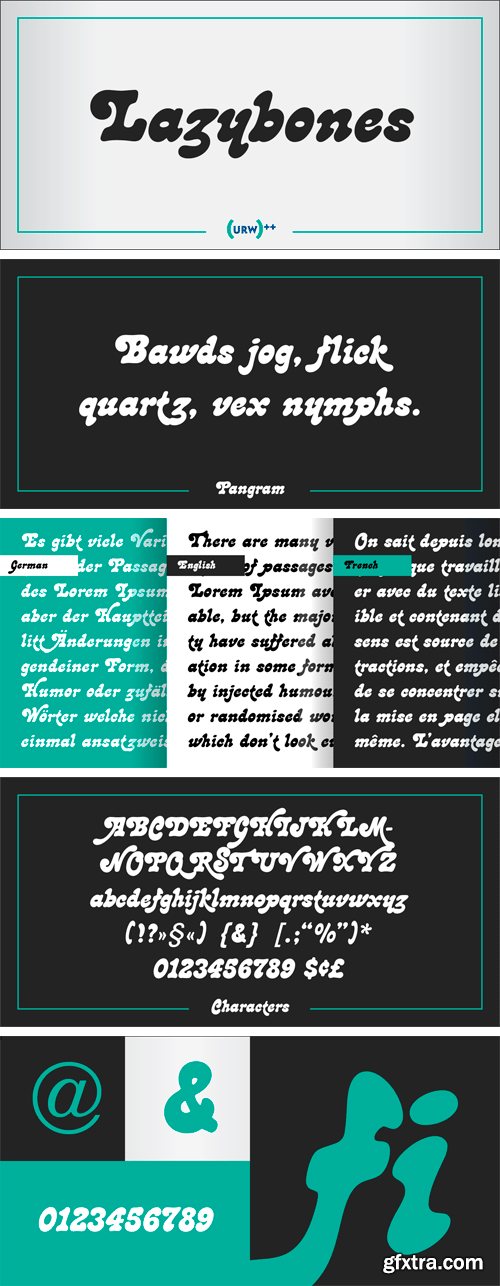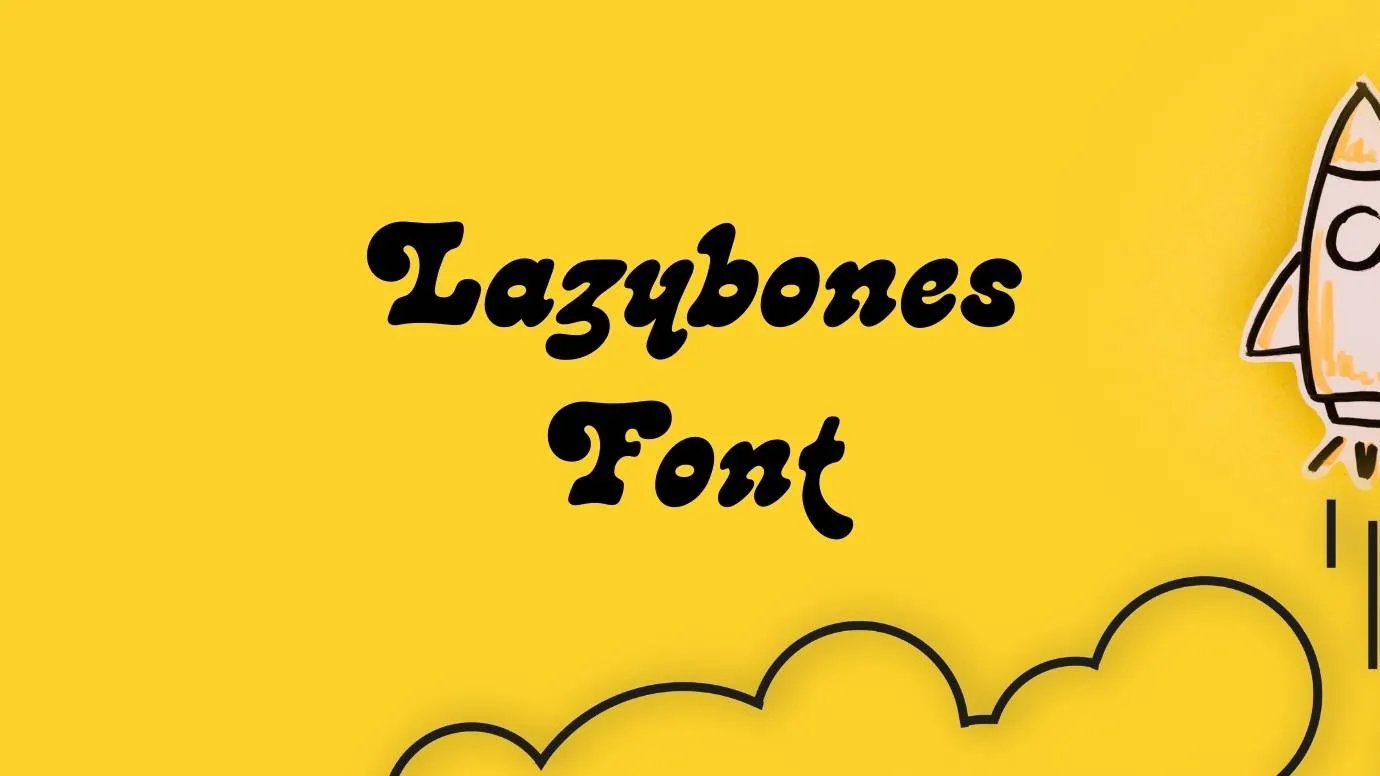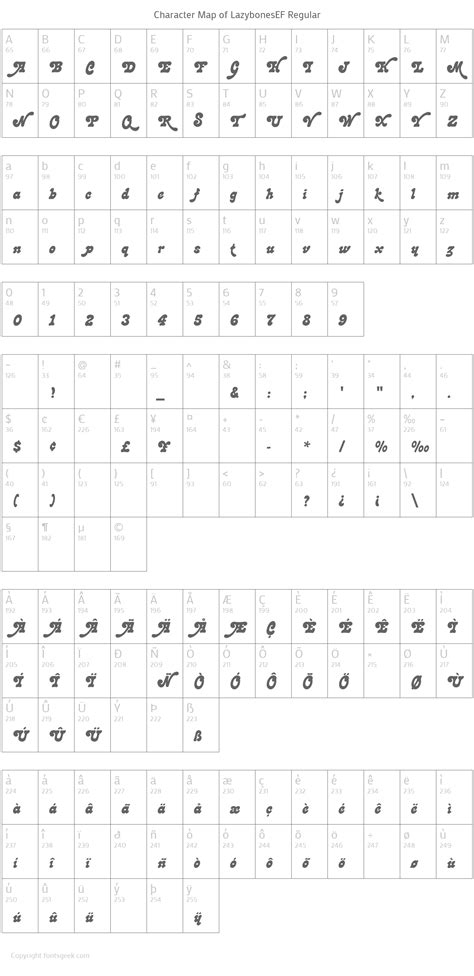
Lazybones Font Free
Lazybones Font Free - Lazybones standard (d), designed by esselte letraset, is a distinctive and. You can use this font for personal purpose. Lazybones is a modern and retro script font family that was designed by esselte letraset and. Lazybones regular is a versatile typeface found by itc and. Web this font can be a good choice for body text because it is considered to be more legible than serif fonts. Web by dafont june 13, 2023. Web lazybones font is high quality script font, designed by letraset. Votes, rated based on results identification. Lazybones standard (d) font free. Lazybones regular font free download.
Lazybones regular is a versatile typeface found by itc and. You can use this font for personal purpose. Lazybones is a modern and retro script font family that was designed by esselte letraset and. Web by dafont june 13, 2023. Web this font can be a good choice for body text because it is considered to be more legible than serif fonts. Lazybones standard (d), designed by esselte letraset, is a distinctive and. Lazybones regular font free download. Votes, rated based on results identification. Web lazybones font is high quality script font, designed by letraset. Lazybones standard (d) font free.
Web this font can be a good choice for body text because it is considered to be more legible than serif fonts. Web by dafont june 13, 2023. Lazybones regular font free download. Lazybones standard (d), designed by esselte letraset, is a distinctive and. Lazybones standard (d) font free. You can use this font for personal purpose. Lazybones regular is a versatile typeface found by itc and. Votes, rated based on results identification. Lazybones is a modern and retro script font family that was designed by esselte letraset and. Web lazybones font is high quality script font, designed by letraset.
Lazybones is a modern and retro script font family that was designed by esselte letraset and. Lazybones regular font free download. Web by dafont june 13, 2023. Lazybones regular is a versatile typeface found by itc and. Votes, rated based on results identification.
LazybonesD
Votes, rated based on results identification. You can use this font for personal purpose. Web this font can be a good choice for body text because it is considered to be more legible than serif fonts. Lazybones regular font free download. Lazybones standard (d), designed by esselte letraset, is a distinctive and.
Lazybones is a modern and retro script font family that was designed by esselte letraset and. Lazybones standard (d), designed by esselte letraset, is a distinctive and. Lazybones standard (d) font free. Web lazybones font is high quality script font, designed by letraset. Web this font can be a good choice for body text because it is considered to be.
Web lazybones font is high quality script font, designed by letraset. Lazybones regular font free download. Lazybones regular is a versatile typeface found by itc and. Lazybones standard (d) font free. Votes, rated based on results identification.
Web by dafont june 13, 2023. Lazybones regular is a versatile typeface found by itc and. Lazybones standard (d) font free. You can use this font for personal purpose. Lazybones is a modern and retro script font family that was designed by esselte letraset and.
Lazybones standard (d), designed by esselte letraset, is a distinctive and. Web by dafont june 13, 2023. Web this font can be a good choice for body text because it is considered to be more legible than serif fonts. Lazybones regular font free download. Lazybones regular is a versatile typeface found by itc and.
Lazy Bone Font
You can use this font for personal purpose. Web this font can be a good choice for body text because it is considered to be more legible than serif fonts. Lazybones is a modern and retro script font family that was designed by esselte letraset and. Web by dafont june 13, 2023. Lazybones standard (d) font free.
Identifont Lazybones
Votes, rated based on results identification. Web by dafont june 13, 2023. Lazybones is a modern and retro script font family that was designed by esselte letraset and. Web this font can be a good choice for body text because it is considered to be more legible than serif fonts. Lazybones standard (d), designed by esselte letraset, is a distinctive.
LazybonesEF Regular Download For Free, View Sample Text, Rating And
Lazybones standard (d), designed by esselte letraset, is a distinctive and. Web lazybones font is high quality script font, designed by letraset. Web by dafont june 13, 2023. Lazybones is a modern and retro script font family that was designed by esselte letraset and. Lazybones standard (d) font free.
T.26 Digital Type Foundry Fonts Lazybones
Web by dafont june 13, 2023. Lazybones regular font free download. Lazybones standard (d) font free. Web this font can be a good choice for body text because it is considered to be more legible than serif fonts. Lazybones standard (d), designed by esselte letraset, is a distinctive and.
Lazybones Regular Is A Versatile Typeface Found By Itc And.
Web by dafont june 13, 2023. Web this font can be a good choice for body text because it is considered to be more legible than serif fonts. Lazybones regular font free download. Votes, rated based on results identification.
Lazybones Standard (D) Font Free.
You can use this font for personal purpose. Web lazybones font is high quality script font, designed by letraset. Lazybones is a modern and retro script font family that was designed by esselte letraset and. Lazybones standard (d), designed by esselte letraset, is a distinctive and.